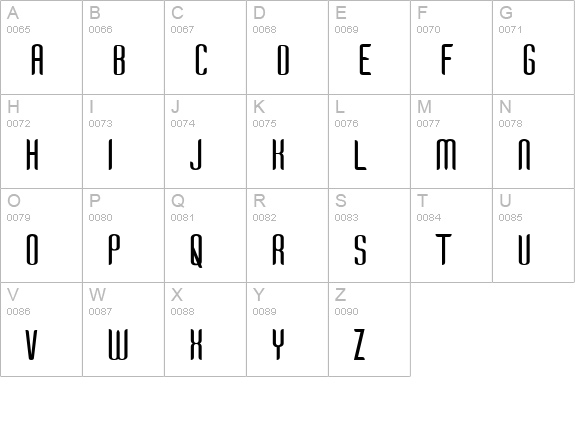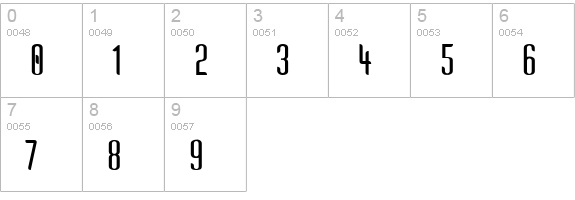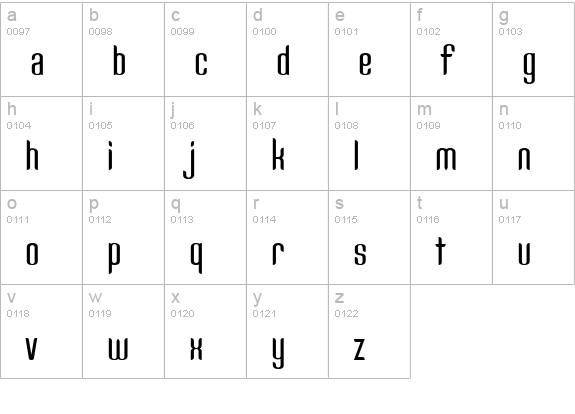
Kandide Font Details
Kandide font is a versatile and elegant typeface that effortlessly combines modernity with a touch of sophistication. Its clean lines and stylish curves make it a perfect choice for a wide range of design projects, from branding to packaging and everything in between. The font's sleek and contemporary look is sure to make your text stand out and leave a lasting impression on your audience. And the best part? Kandide font is completely free to download at FontsMarket.com. That's right, you can access this beautiful font at no cost and use it to elevate your designs to the next level. Don't miss out on the opportunity to add Kandide font to your font library and enhance your creative projects with its timeless appeal. Download it today and let your creativity shine with this stunning typeface.